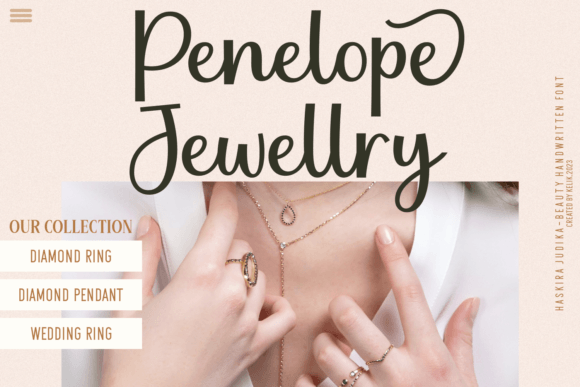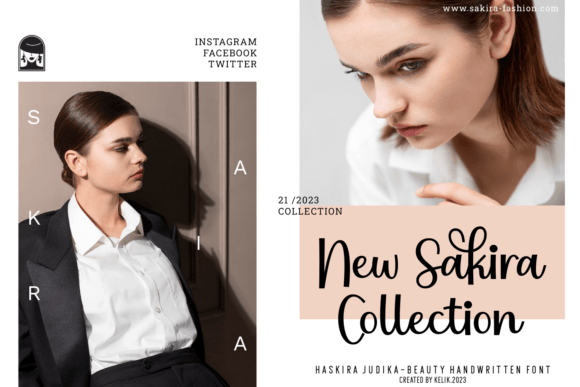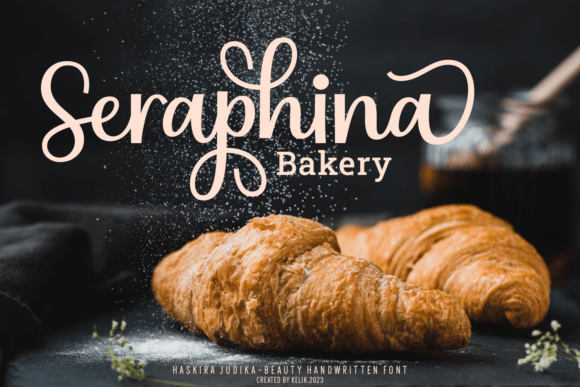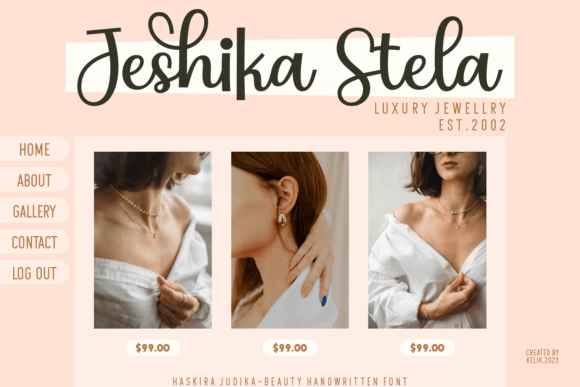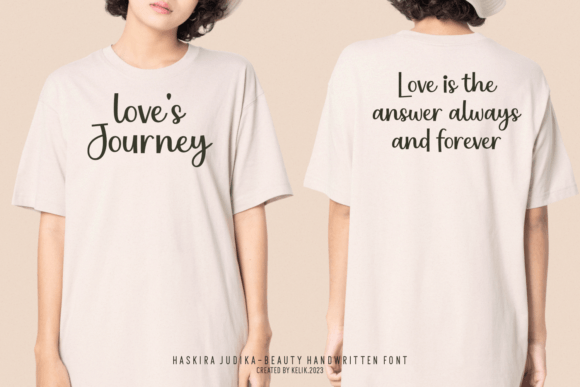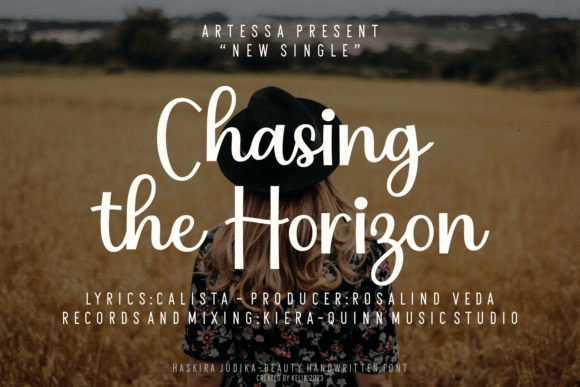
Haskira Judika Font: Elevate Your Designs with Elegance and Sophistication
In the world of typography, a font can make or break a design. For designers and crafters seeking to add a touch of luxury and refinement to their work, the Haskira Judika Font is an exceptional choice. This exquisite font is both elegant and sophisticated, making it perfect for high-end branding, editorial design, and projects that demand a sense of glamour and class.
The Essence of Elegance: Haskira Judika’s Design
Haskira Judika is a masterclass in typographic design. Its letters exude sophistication and luxury, with graceful curves and delicate details that create a sense of refinement and beauty. Each character is carefully crafted to convey a sense of elegance, making it an ideal choice for designs that require a high level of sophistication.
Perfect for High-End Branding and Editorial Design
The Haskira Judika Font is specifically designed for use in high-end branding, editorial design, and projects that demand a touch of glamour and class. Its chic and refined appearance makes it perfect for:
- Luxury brand logos and marketing materials
- Editorial design, such as magazine and newspaper headlines
- Wedding and event invitations
- High-end product packaging
- Any design project that requires a sense of sophistication and elegance
PUA Encoded for Effortless Access
One of the standout features of the Haskira Judika Font is its PUA (Private Use Area) encoding. This means that users can access all glyphs and swashes effortlessly, without the need for complex software or technical expertise. With PUA encoding, designers can:
- Easily access and use a wide range of glyphs and swashes
- Customize and experiment with different typographic combinations
- Save time and focus on the creative process
Why Choose Haskira Judika Font?
With so many fonts available, why choose Haskira Judika? Here are just a few reasons why designers and crafters are drawn to this exceptional font:
- Unique and distinctive design: Haskira Judika’s elegant and sophisticated design sets it apart from other fonts.
- Versatility: This font can be used in a wide range of design projects, from luxury branding to editorial design.
- Easy to use: PUA encoding makes it easy to access and use all glyphs and swashes.
- High-quality: Haskira Judika is a high-quality font that is designed to deliver exceptional results.
In conclusion, the Haskira Judika Font is an exceptional choice for designers and crafters seeking to add a touch of elegance and sophistication to their work. With its unique and distinctive design, versatility, ease of use, and high-quality construction, this font is perfect for high-end branding, editorial design, and projects that demand a sense of glamour and class. Whether you’re a seasoned designer or just starting out, Haskira Judika is a font that is sure to elevate your designs and help you achieve your creative goals.